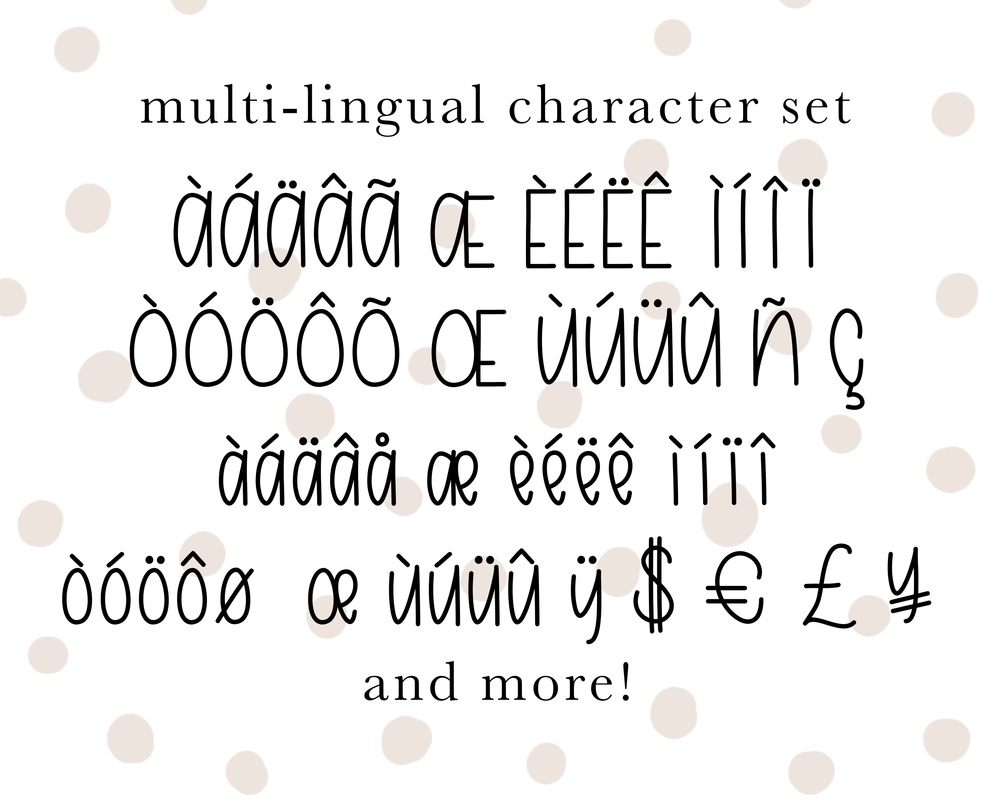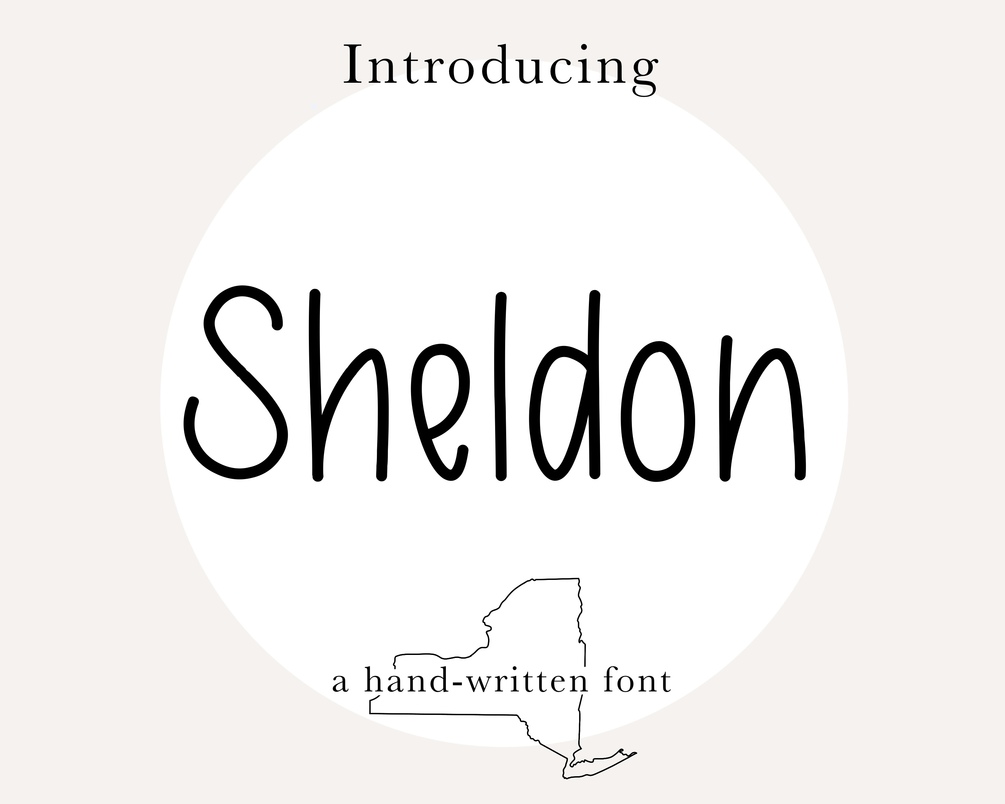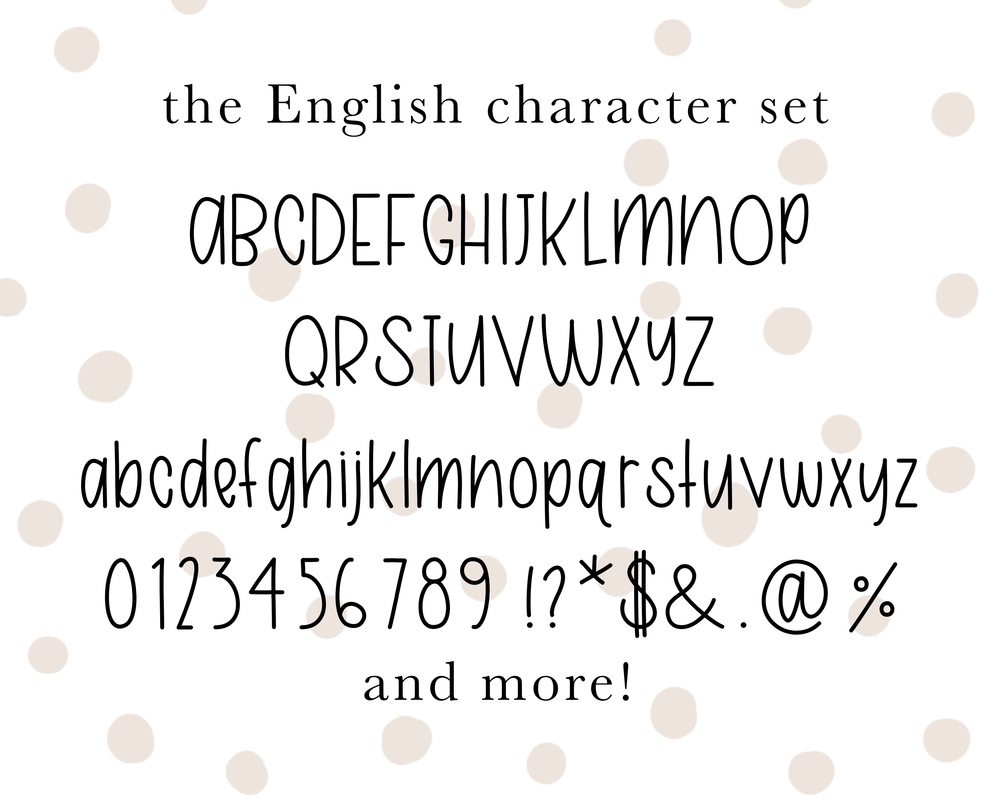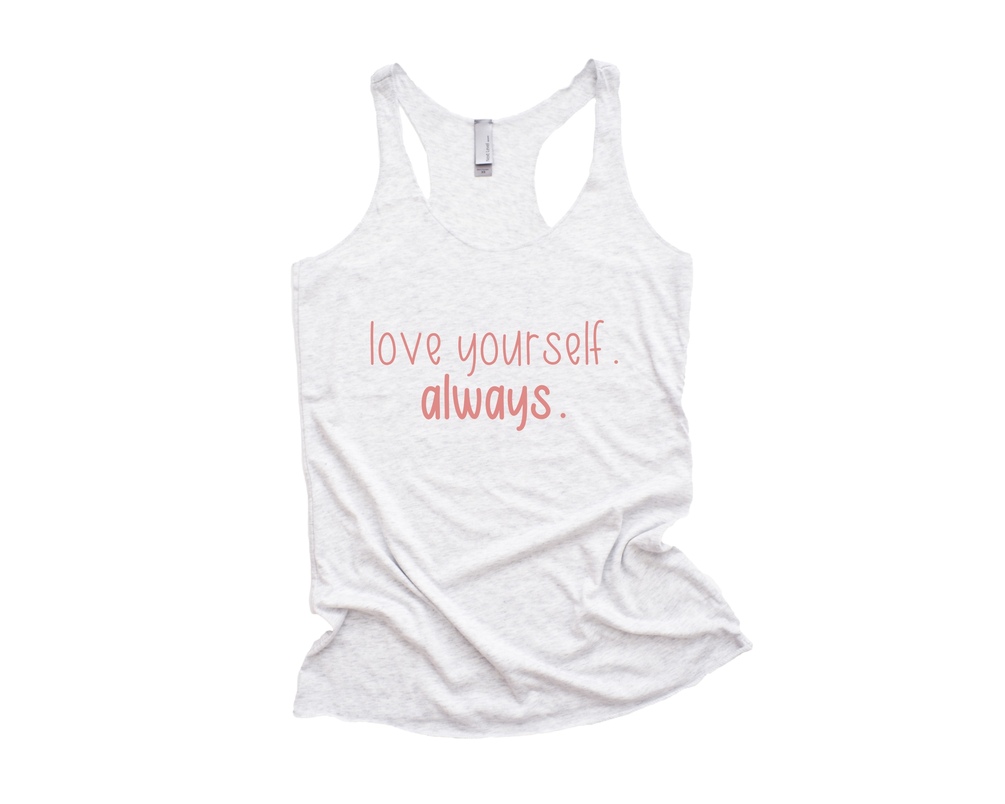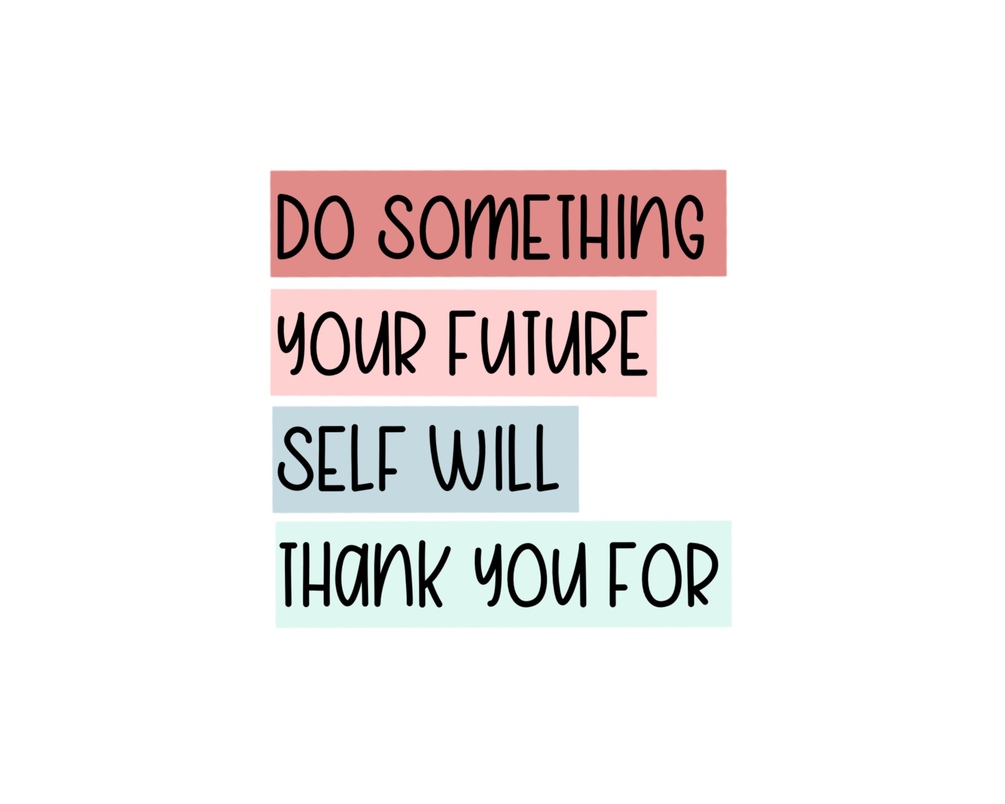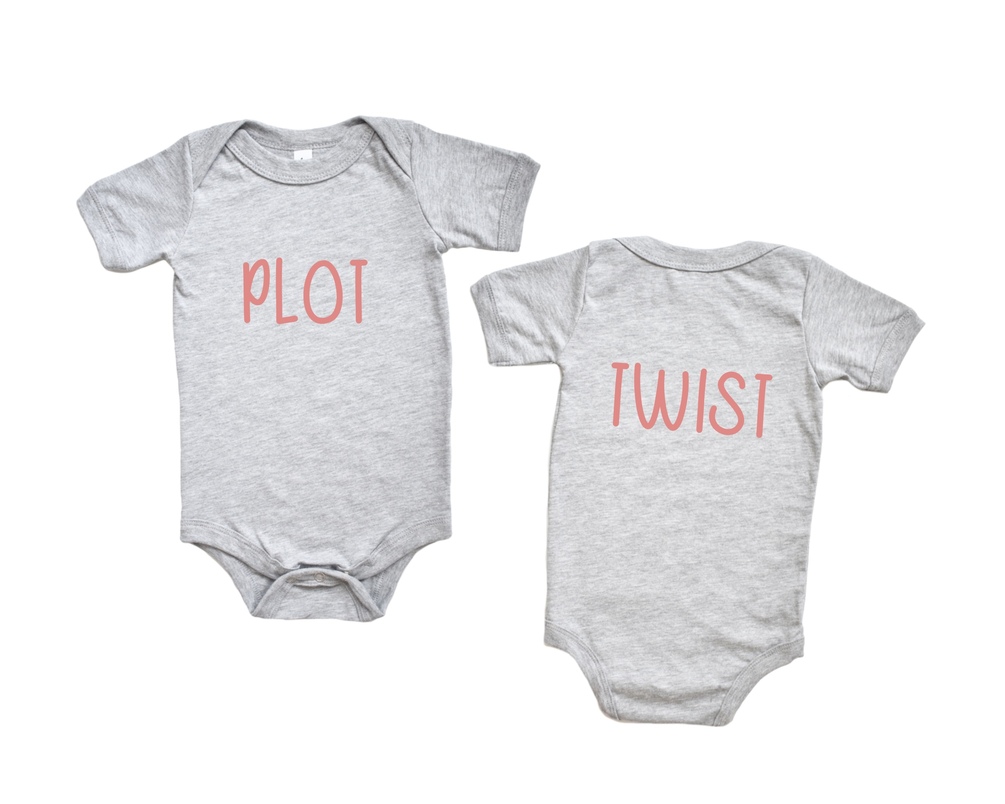
Sheldon Font
A cute, bouncy, handwritten, sans serif font! The "Sheldon Font" is a fun, informal print font that's perfect for decals, lettering art, t-shirts, stickers, and more. Check out the preview images for some examples of what you can do with Sheldon before purchasing!
SHELDON FONT- a handwritten, sans serif TTF font that includes a full set of upper and lower case letters, multilingual symbols, numbers, punctuation, and more
SHELDON BOLD FONT- bold version of "Sheldon" (TTF file format) so you can pack in that extra emphasis while working!
Includes standard English characters and multi-lingual support for many accents